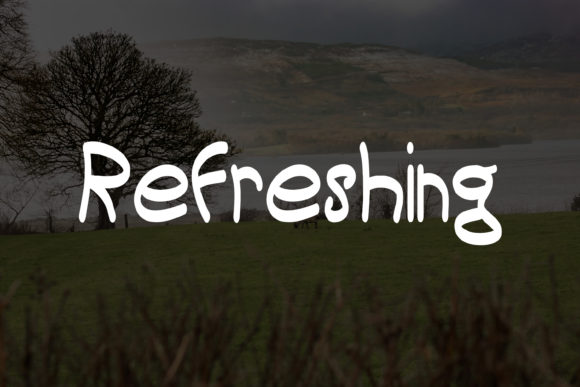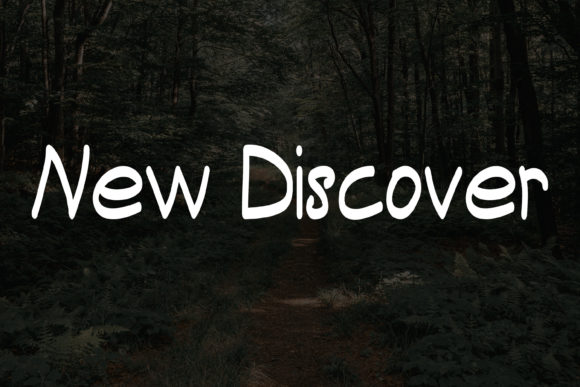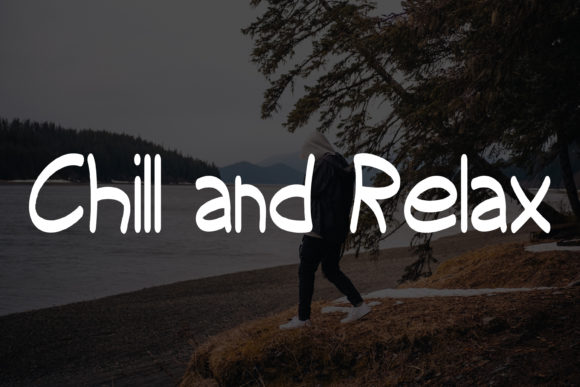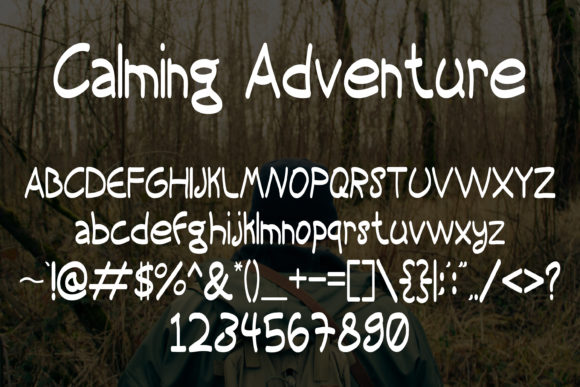
The Perfect Companion for Your Next Creative Project
There’s something special about sitting in front of your computer, staring at a blank canvas, and feeling the excitement build as you begin to bring your ideas to life. It’s the moment when creativity knows no bounds, and the possibilities are endless. For designers like you, this feeling is what drives you to create something truly remarkable. And, as you embark on your next adventure, you’ll want a trusted companion by your side – one that will help you elevate your work and leave a lasting impression.
Enter the Calming Adventure Font, a simple yet captivating handwritten font that’s perfect for any project. Whether you’re designing a blog post, a social media campaign, or a marketing brochure, this font has the potential to take your creations to the next level. Its cool and fun vibe makes it an incredibly valuable asset to your font library, and with its calming touch, it’s sure to soothe even the most stressed of design nerves.
Calming Adventure Font Key Features
- Font Family: Calming Adventure Font is a unique, hand-drawn typeface designed for creating a soothing atmosphere.
- Unique Characteristics: Features a dreamy, ethereal quality with subtle imperfections, creating a sense of hand-crafted uniqueness.
- Language Support: Supports Latin, Cyrillic, and Greek alphabets, making it suitable for a wide range of design projects.
Designer Review: Calming Adventure Font
At first glance, the Calming Adventure Font seems like a beautiful addition to any design project. Here are some of its standout features:
- ✨ Beautifully crafted letterforms with a mix of modern and organic elements, creating a unique visual identity.
- ✨ The font’s calming vibe makes it perfect for projects that require a soothing and peaceful atmosphere.
- ✨ The font’s versatility allows it to be used in a variety of contexts, from branding to editorial content.
However, I also noticed some limitations that might be worth considering:
- ⚠️ The font’s legibility can be affected by its complex letterforms, which might make it difficult to read at smaller font sizes.
- ⚠️ The font’s unique style might not be to everyone’s taste, and some users might find it too quirky or overwhelming.
- ⚠️ The font’s availability in various weights and styles is limited, which might make it harder to achieve a consistent visual identity.
Overall, I think the Calming Adventure Font is a great choice for designers who are looking for a unique and calming visual identity. However, it’s essential to consider the potential limitations and ensure that the font is used in a way that complements the project’s overall message and tone.
Tips for Getting the Most Out of Calming Adventure Font
Use Calming Adventure Font for titles and headings to create a soothing and calming atmosphere. Pair it with a bold font for contrast and visual interest. Experiment with different font sizes and styles to create a unique look.
Use Calming Adventure Font for:
- Wellness and self-care branding
- Meditation and yoga marketing materials
- Relaxing and calming website designs
- Print materials such as brochures and flyers
Alternatives to Calming Adventure Font
The Great Vibes Font is a handwritten font that conveys a sense of relaxation and calmness. It’s perfect for designs that require a touch of elegance and sophistication. Great Vibes Font is more cursive and flowing compared to Calming Adventure Font, which makes it ideal for use in titles and headings.